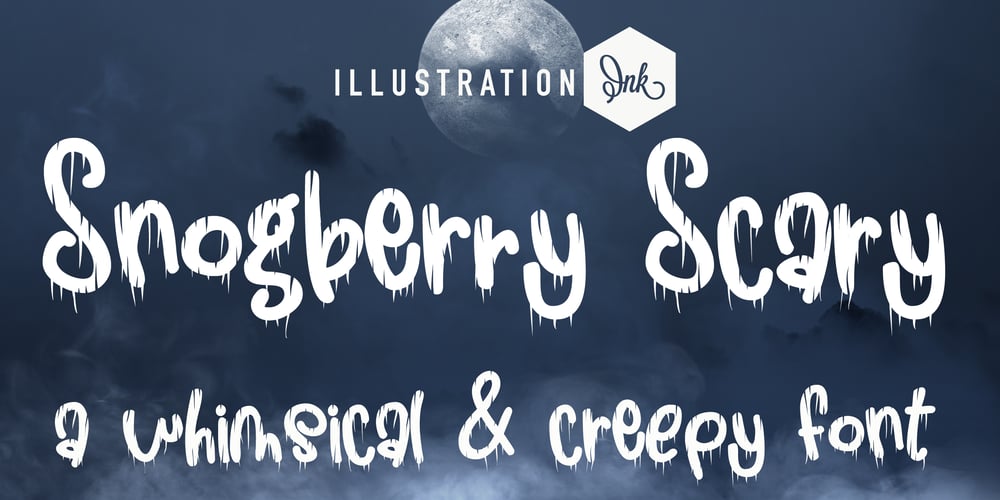
ZP Snogberry Scary Font Family was designed by Illustration Ink and published by Illustration Ink. ZP Snogberry Scary contains 1 styles and family package options. This hand-printed font is dripping with creepy moss.A hand-crafted font is a font that is designed to look like it was written by hand. It is often used for invitations, greeting cards, and other items. Handwritten fonts can be either formal or informal, and they can be used for a variety of purposes.Some of the characteristics of handwritten fonts include: The letters are not perfectly uniform in size or shape. There may be slight variations in the spacing between letters and words. The font may have a “wiggly” or “squiggly” appearance. The font may be difficult to read at small sizes. Handwritten fonts can be a great way to add a casual touch to your designs. They can also be used to create a sense of nostalgia or whimsy. However, it is important to choose a handwritten font that is appropriate for the project you are working on. A formal handwritten font may not be appropriate for a casual invitation, while an informal handwritten font may not be appropriate for a corporate document.